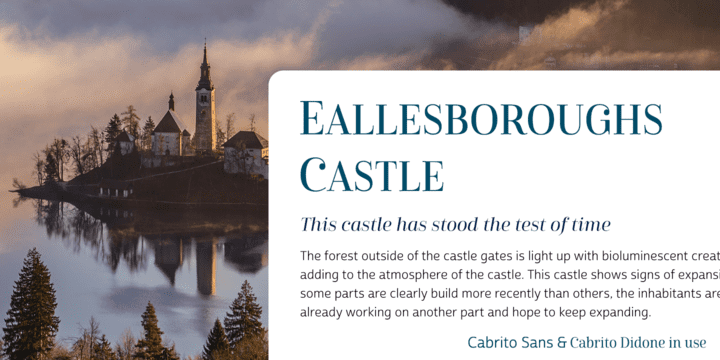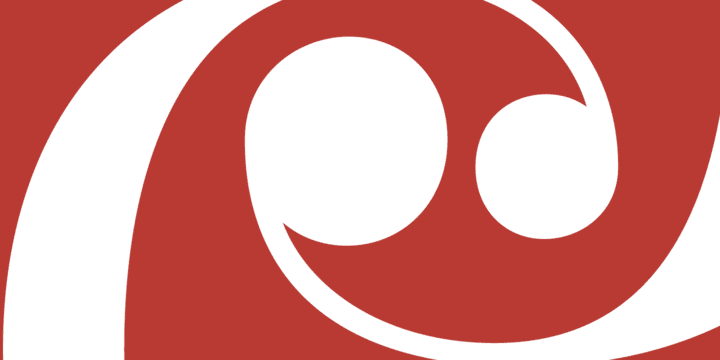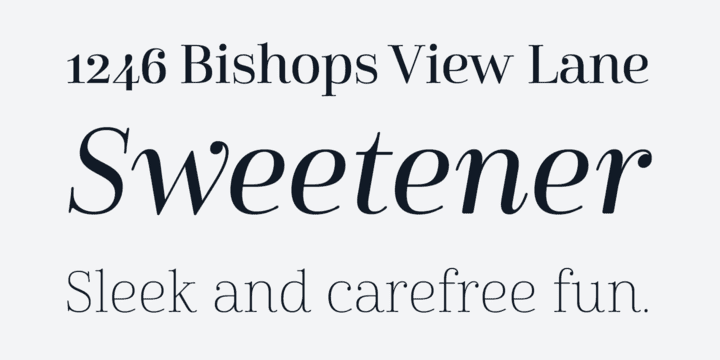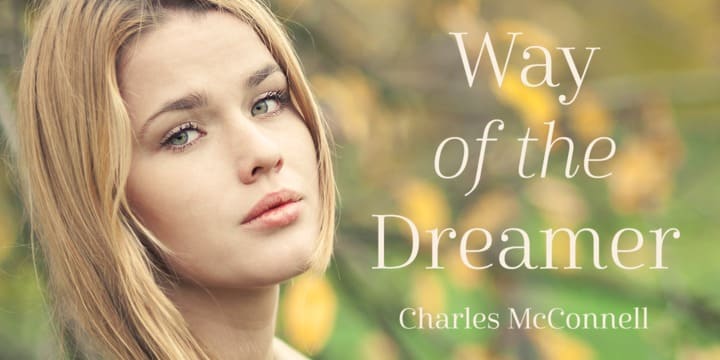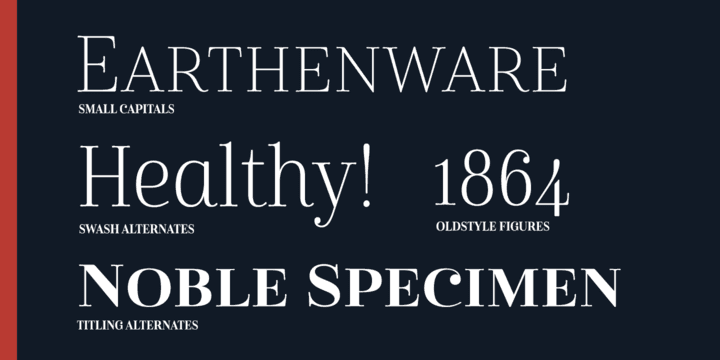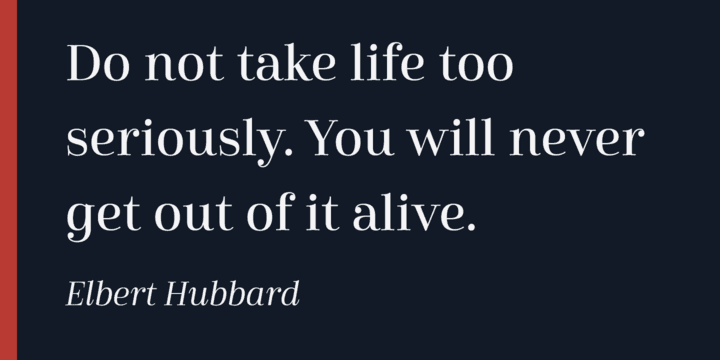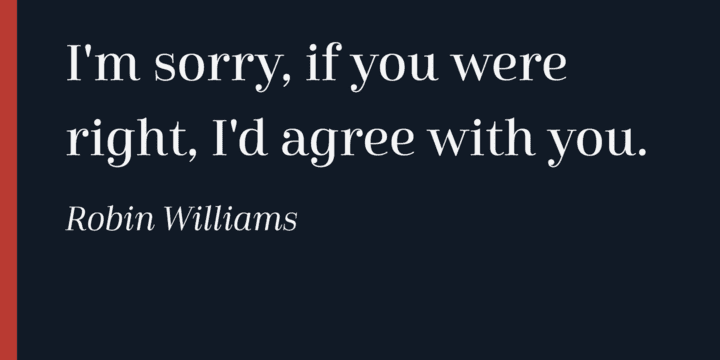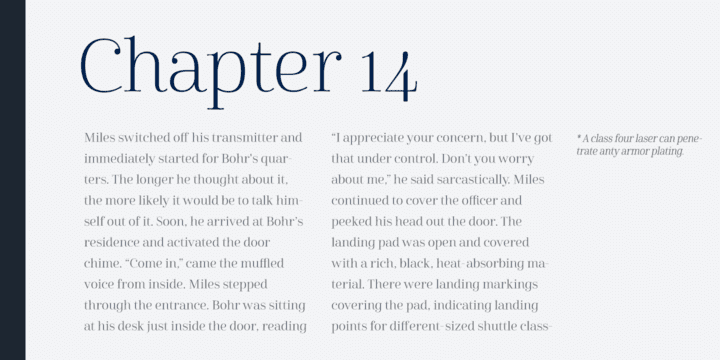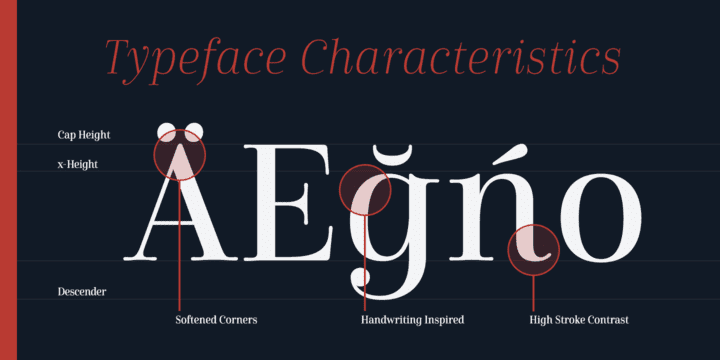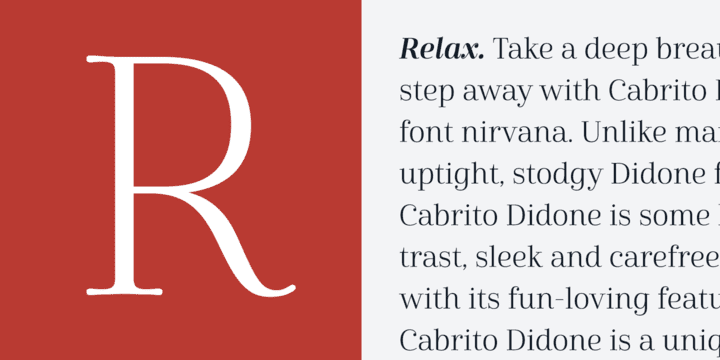
Now, this latest addition brings a new Didone flavor to the table. But don’t judge the book by its cover. While Didones can be stodgy in the way they deliver a sense of luxury, this stubborn goat of a Didone bucks the stodgy stereotypes with its high-contrast, carefree, flowing fun, taking a more calligraphic direction than most. Cabrito Didone joins structure and handwriting to create a flowing balance of both characteristics. It’s a unique combination of functional and friendly. Its 42 well-designed fonts give you plenty of easy-going, highly readable options to work with as you craft your design.
The typeface has unique serifs that give the sense of ink pooling slightly at the points, drawn with a sharp nib.
Cabrito Didone supports OpenType features and is packaged with upright obliques, alternates, ligatures, old-fashioned figures, and compact caps. Preview any and all of these features in the interactive PDF manual. The family member font also includes glyphs for 72 languages; over 600 glyphs per font await. Cabrito Didone is an excellent choice for websites as well as flyers and packaging. Like Cabrito, which is currently used by a number of visible brands, Cabrito Didone is also a great option for defining your brand.
Grab a taste of the Cabrito Didone flavor--and those of the other Cabrito members: Sans, Semi and Inverto.